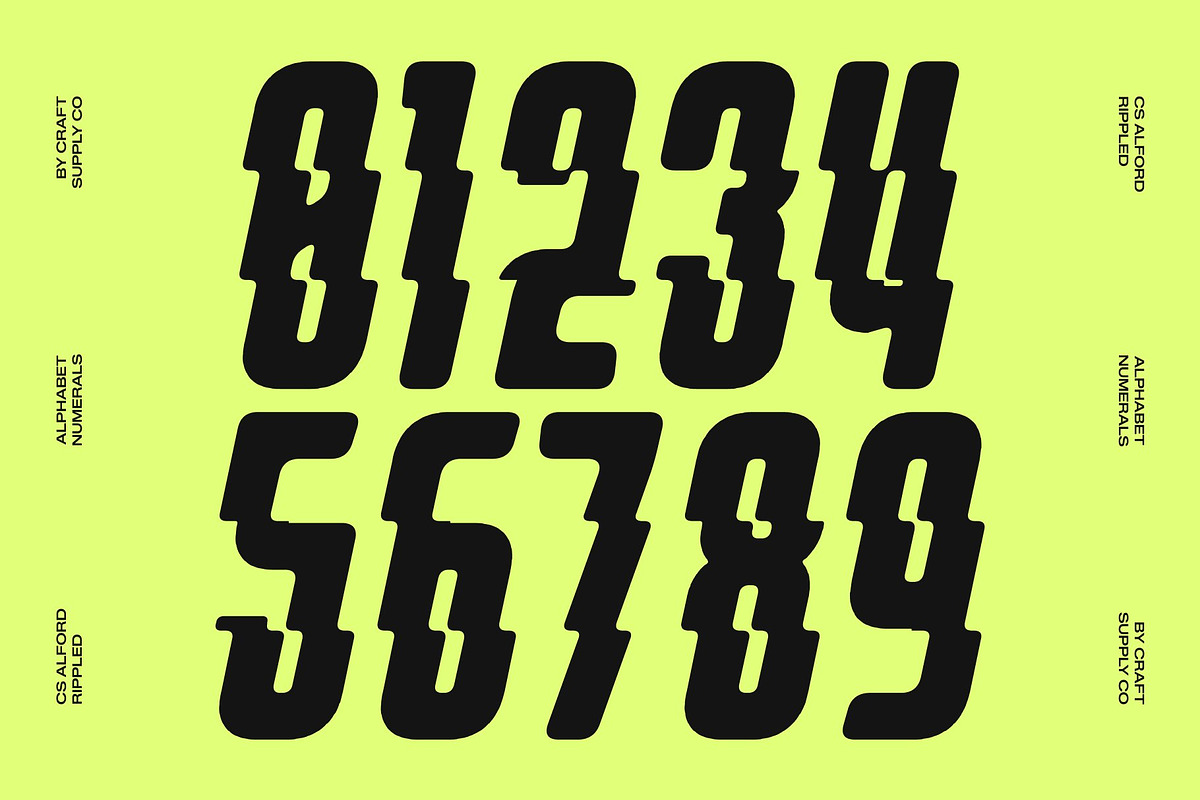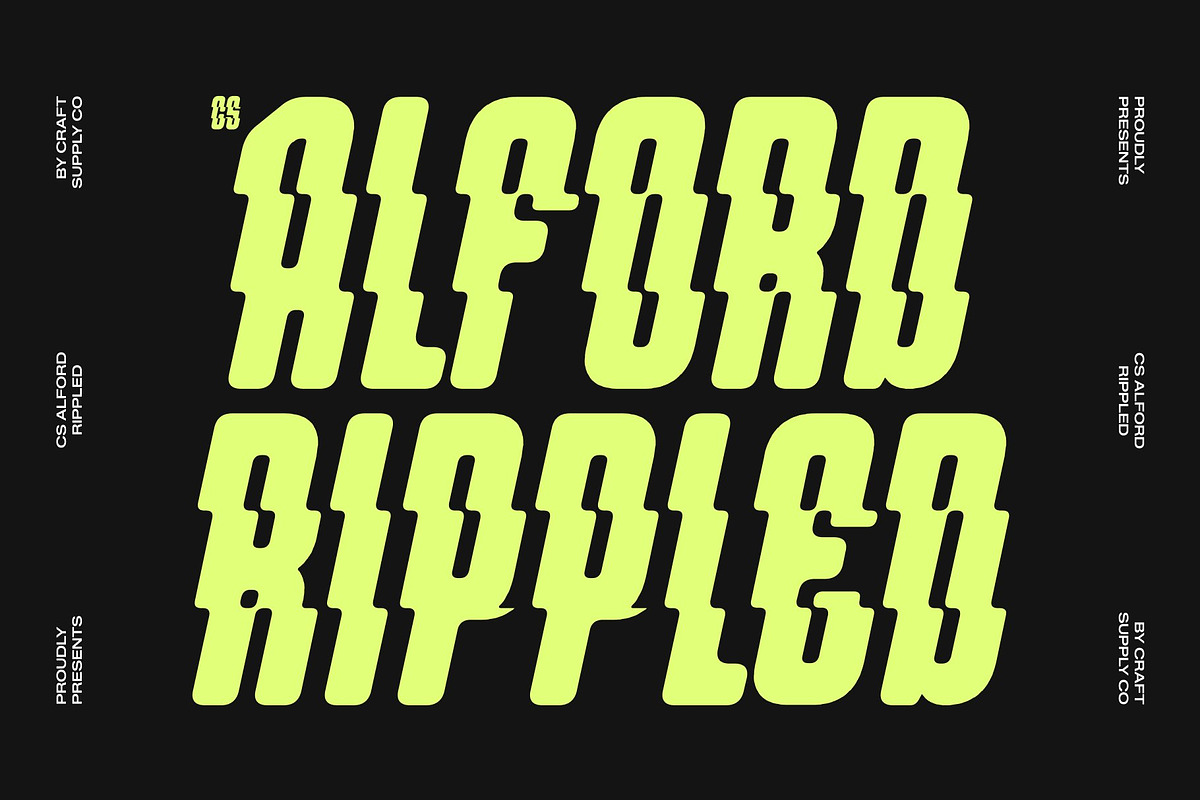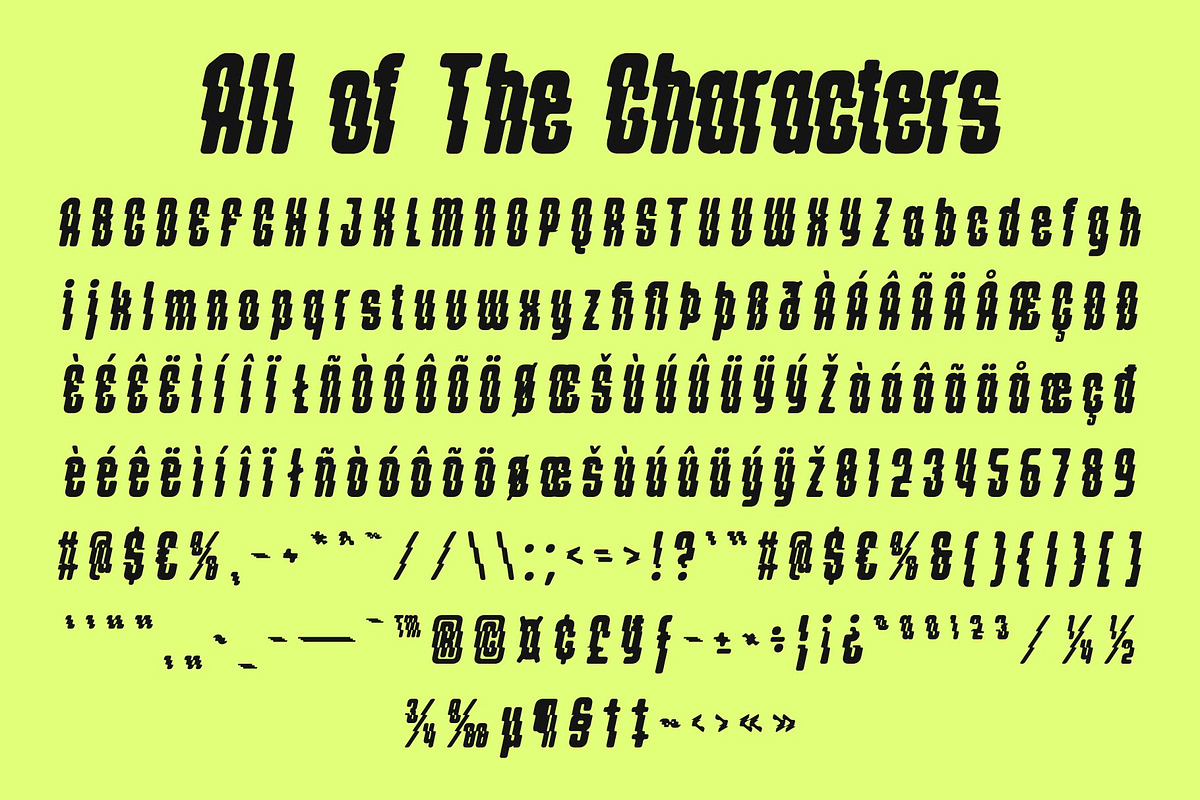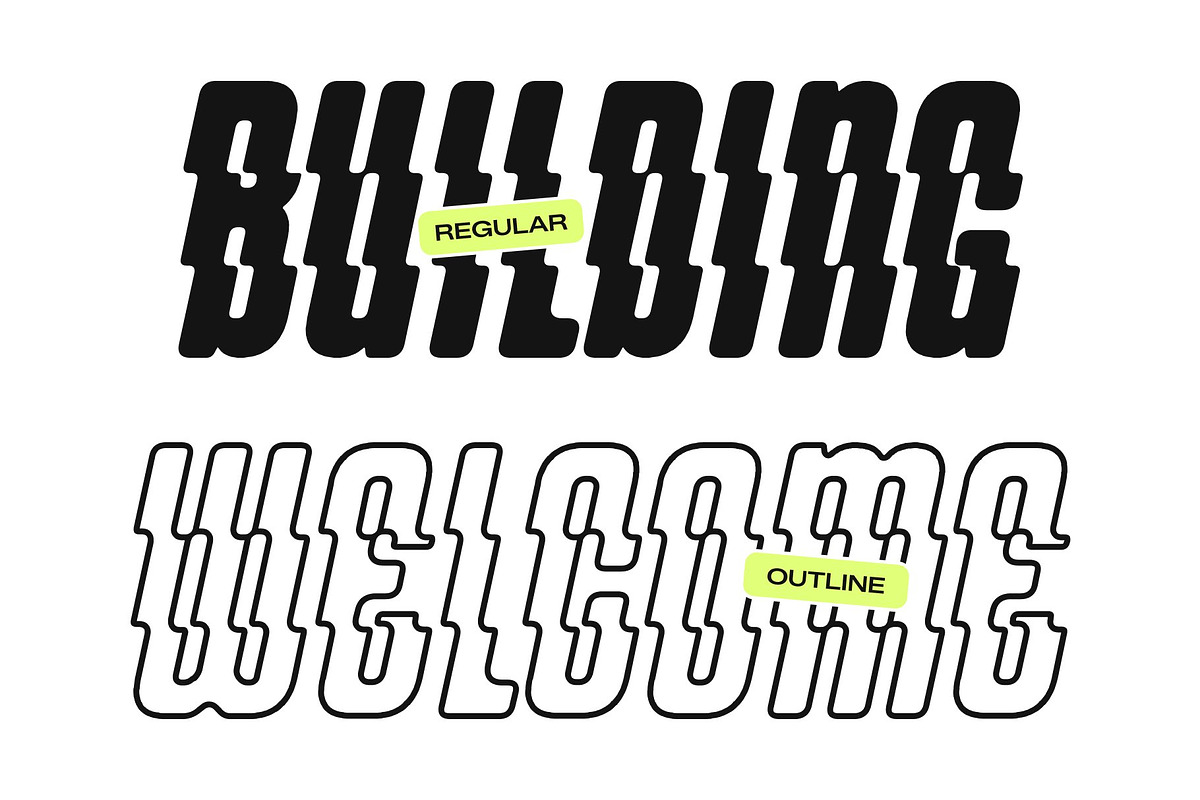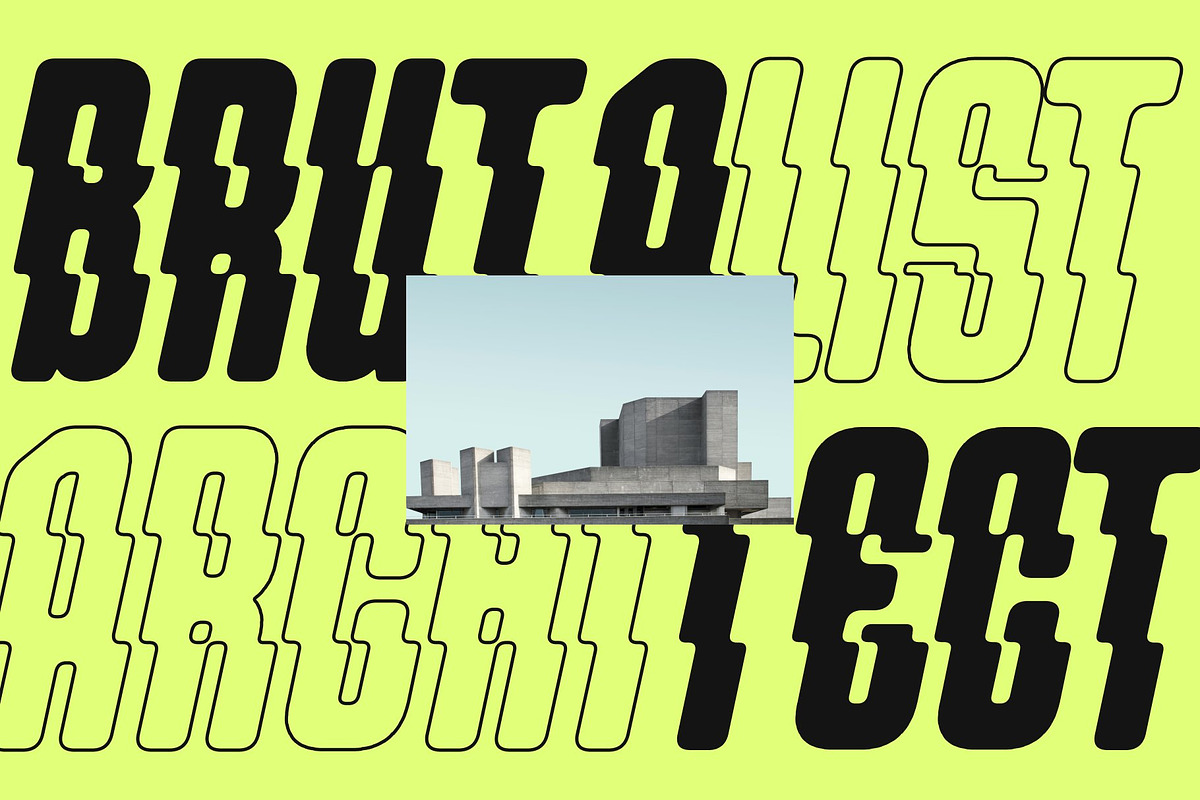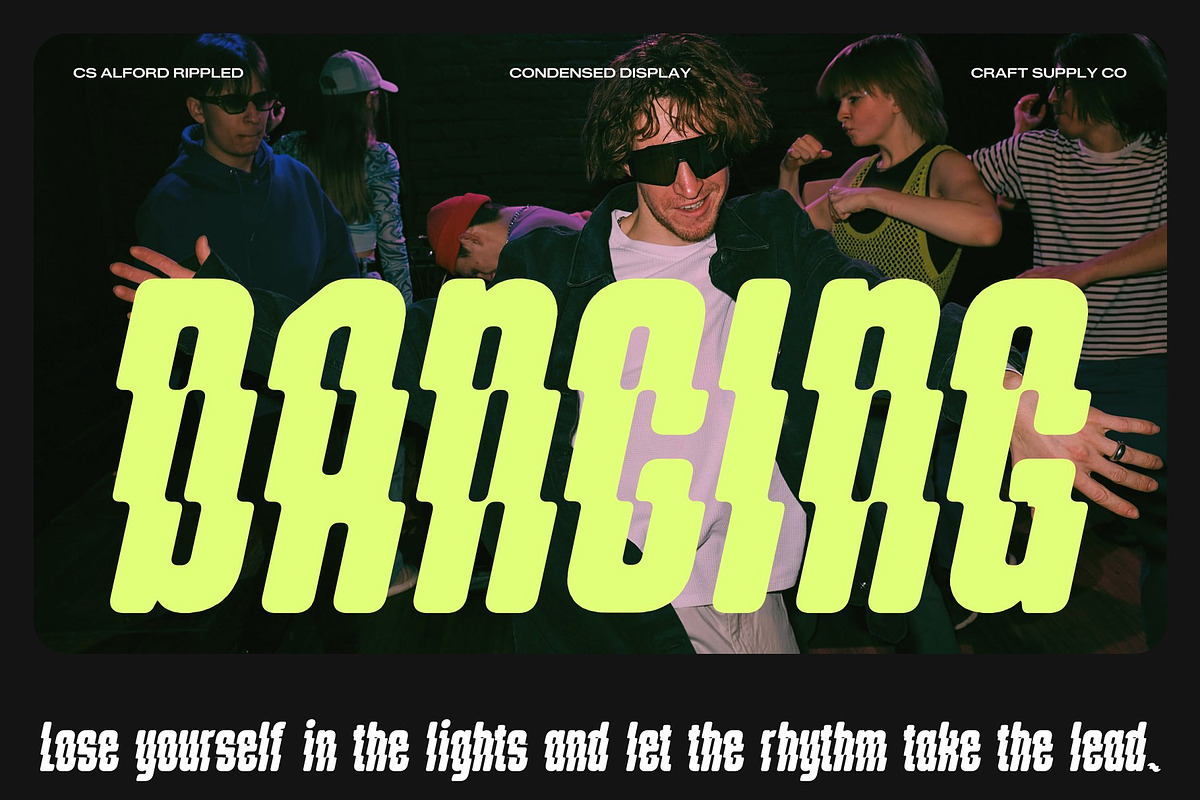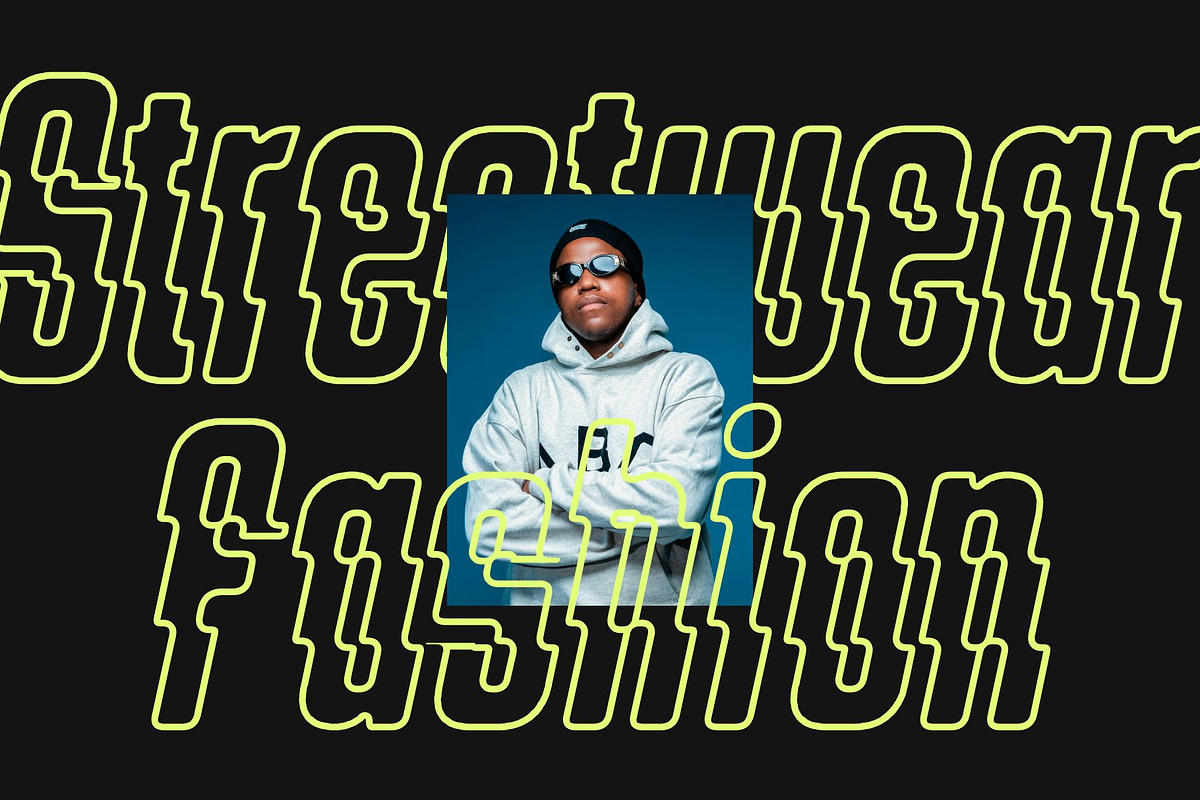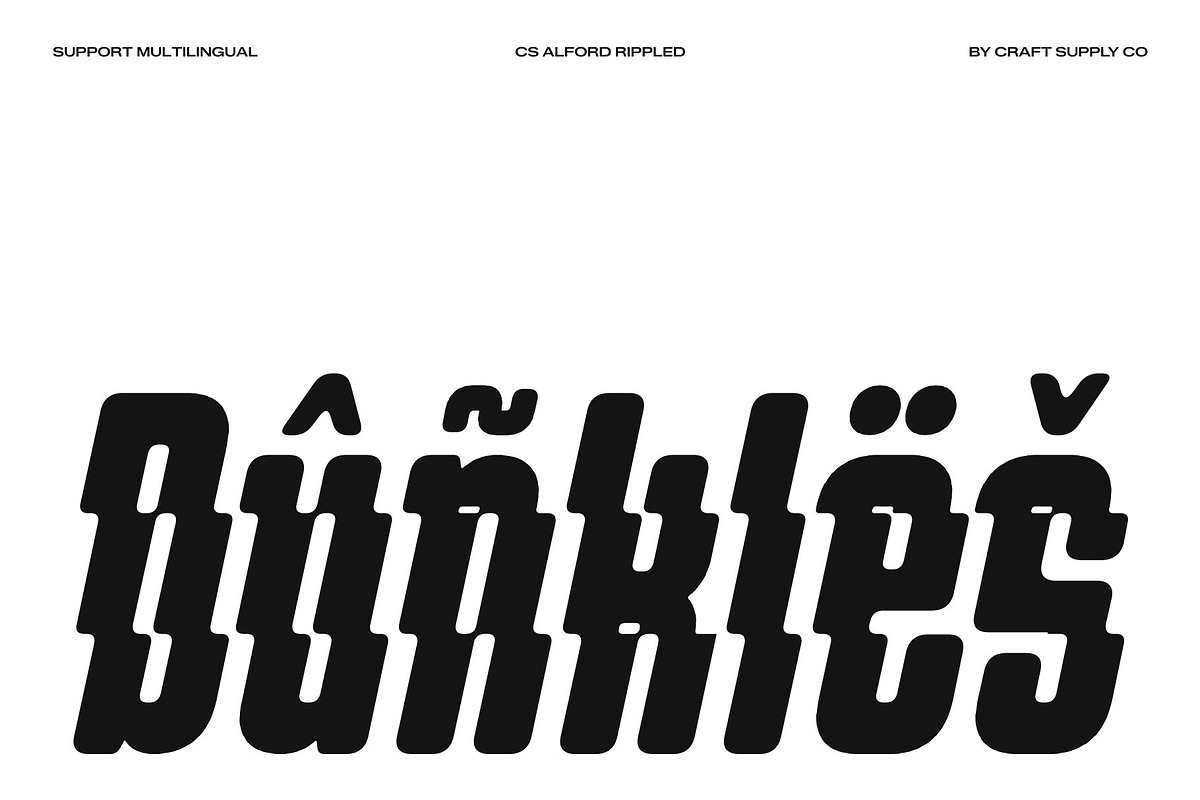
CS Alford Rippled
CS Alford Rippled – Condensed Sans Serif with Bold Precision and Fluid Motion
Condensed Sans Serif Built for Efficiency This is a modern condensed sans serif font designed to maximize visual impact while conserving space. Its narrow proportions allow more content to fit comfortably within tight layouts without compromising clarity or style. The compact structure creates a strong and efficient typographic presence, making it an ideal solution for designers who need bold communication in space-conscious compositions.
Strong Presence with Modern Character Built with clean lines and confident proportions, this font delivers a powerful contemporary aesthetic. Its structured design communicates strength, and modern sophistication through every letterform. The balanced construction ensures a stable and assertive appearance, allowing text to stand out clearly in demanding visual environments.
Clear Readability with Bold Impact Despite its condensed width, this font maintains excellent legibility across a wide range of sizes. Thoughtfully designed spacing and refined letterforms ensure that every word remains clear and easy to read. The bold structure creates strong visual hierarchy while preserving a clean and organized appearance.
Rippled Effect for Dynamic Contemporary Motion The signature rippled distortion introduces a fluid wave-like movement inspired by water reflections and flowing surfaces. This dynamic effect adds depth, motion, and modern energy to the font’s condensed structure, transforming static text into a more engaging visual experience. Perfect for headlines, posters, branding, advertising, and digital campaigns.
CS Alford Rippled Regular
CS Alford Rippled Outline